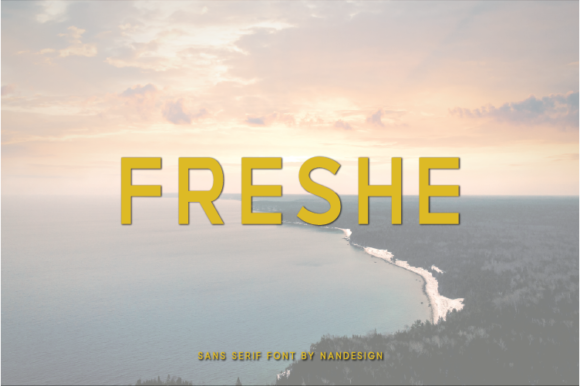
Revitalize Your Designs with the Freshe Font
Remember that moment when you finally land on the perfect font for your project? The excitement, the relief, the ‘aha’ feeling that it all comes together? That’s exactly what we’re talking about when we say that the Freshe Font is a game-changer for designers.
The Freshe Font is a clean and fresh sans serif font designed to elevate your creative ideas and make them stand out. Its versatility allows it to seamlessly integrate into a wide range of projects, from digital designs to print materials. Whether you’re a seasoned designer or just starting out, the Freshe Font is a valuable addition to your toolkit.
Freshe Font Key Features
- Unique Characteristics: Freshe Font features a modern, sans-serif design with a unique blend of geometric and organic elements, providing a clean and sophisticated aesthetic.
Freshe Font Review
I recently had the chance to work with the Freshe Font, and here’s my honest take on it.
The Freshe Font is a solid choice for any design project that needs a modern, clean look. The font’s versatility shines through in its ability to adapt to various contexts, from headings to body text.
- Highly legible, even at small font sizes
- Well-balanced letter spacing for a professional feel
- A wide range of weights and styles to choose from
While the Freshe Font is a great all-around choice, it may not be the best fit for projects that require a lot of character or personality.
- Lacks a distinct, bold personality
- May not be as expressive as some other fonts in its category
- Not ideal for projects that require a lot of emphasis on typography
The Freshe Font is a dependable, modern font that will get the job done. While it may not be the most exciting choice, it’s a solid addition to any designer’s toolkit.
Tips for Getting the Most Out of Freshe Font
1. Experiment with different font sizes and styles to create visual interest.
2. Use Freshe Font in combination with other design elements to create a cohesive look.
3. Consider using Freshe Font for headings and titles to add a touch of sophistication.
Freshe Font is perfect for:
1. Branding and logos.
2. Marketing materials such as brochures and flyers.
3. Digital products such as e-books and presentations.